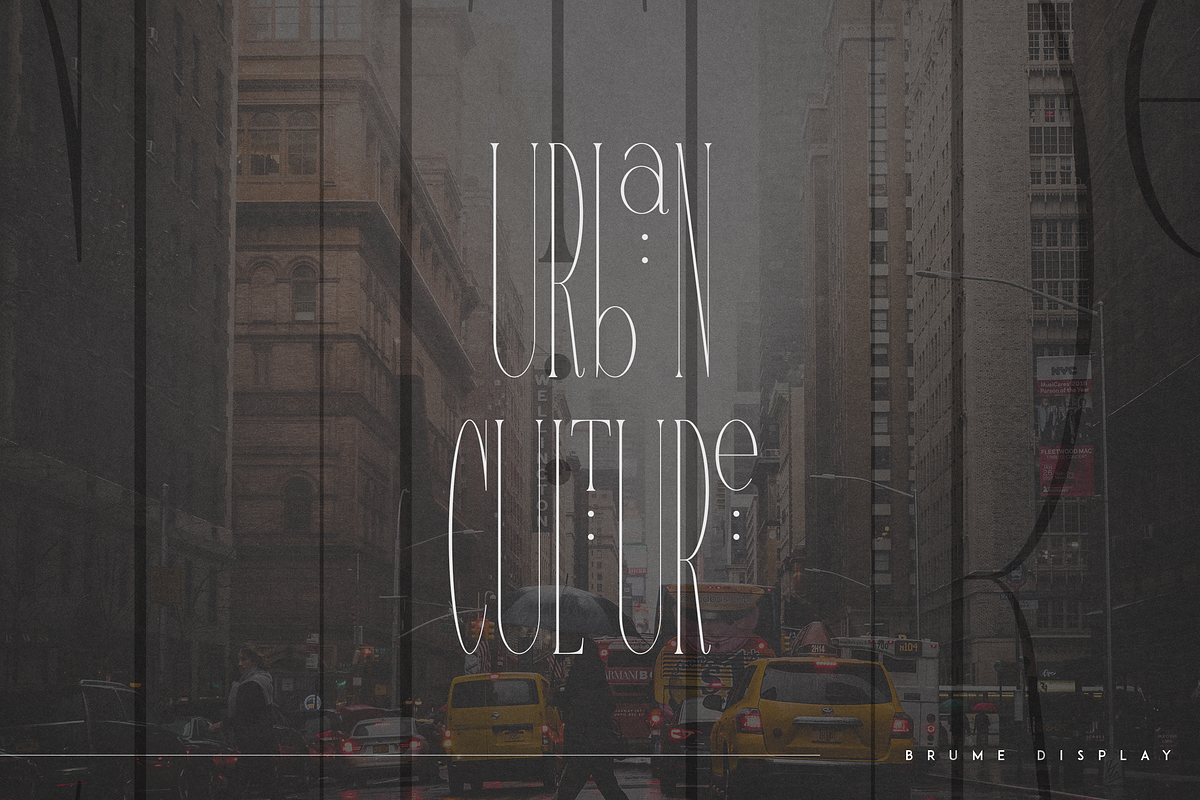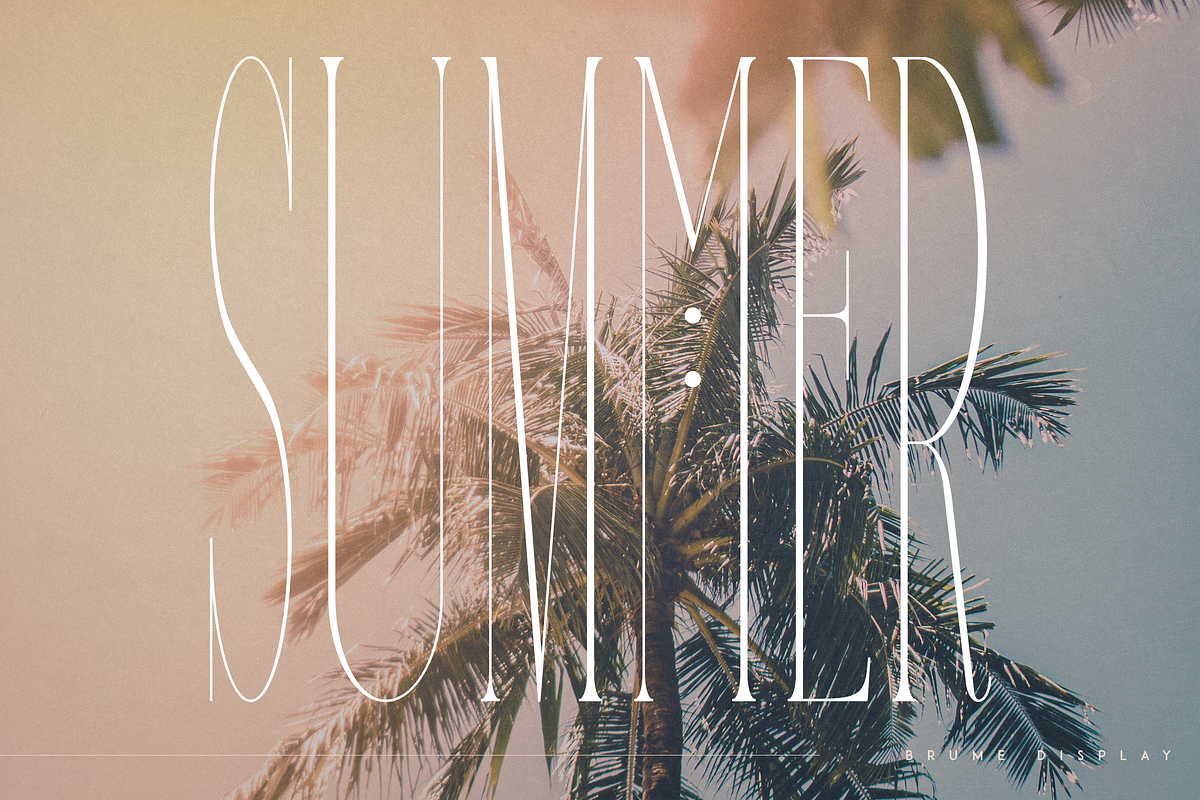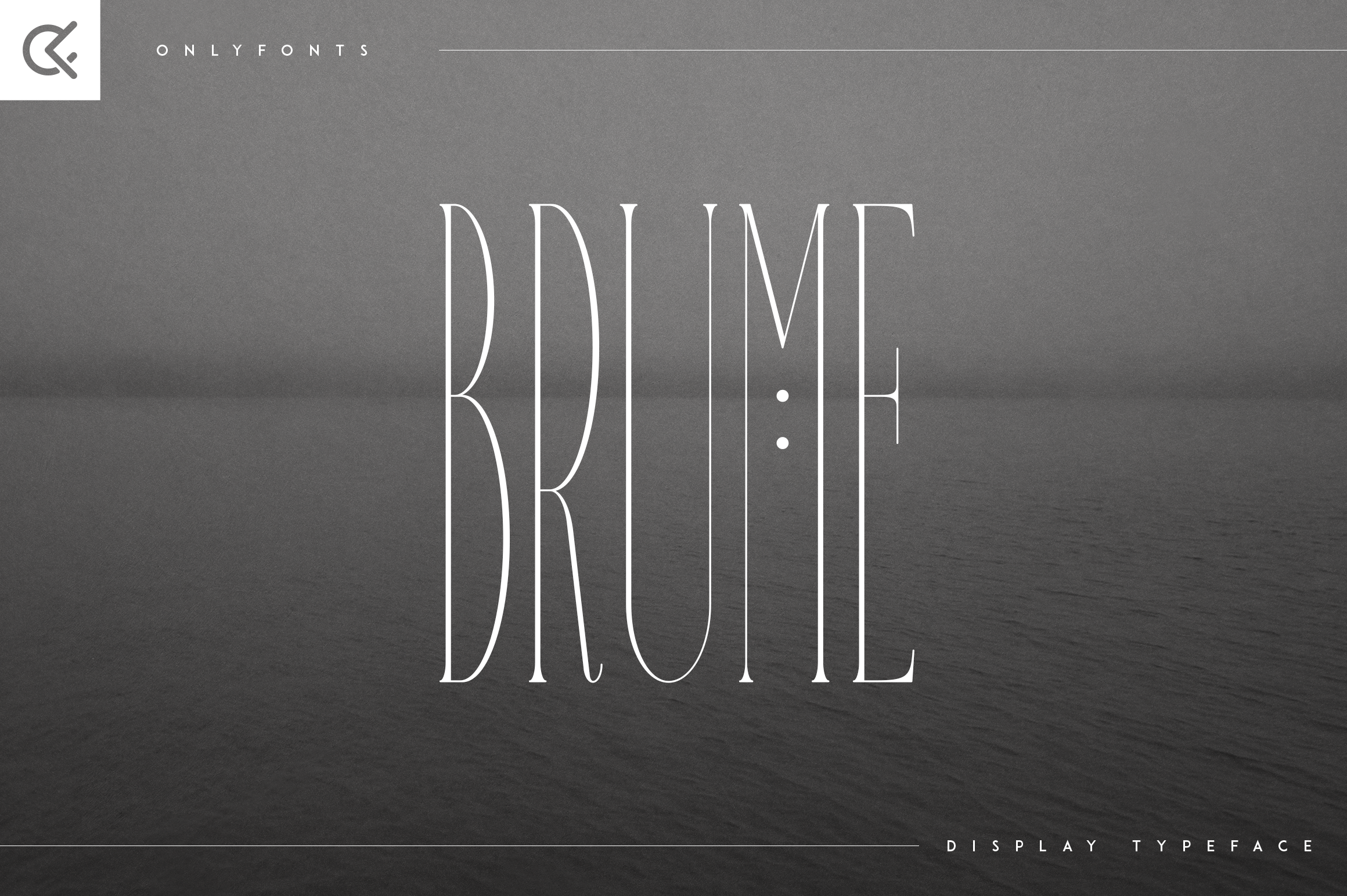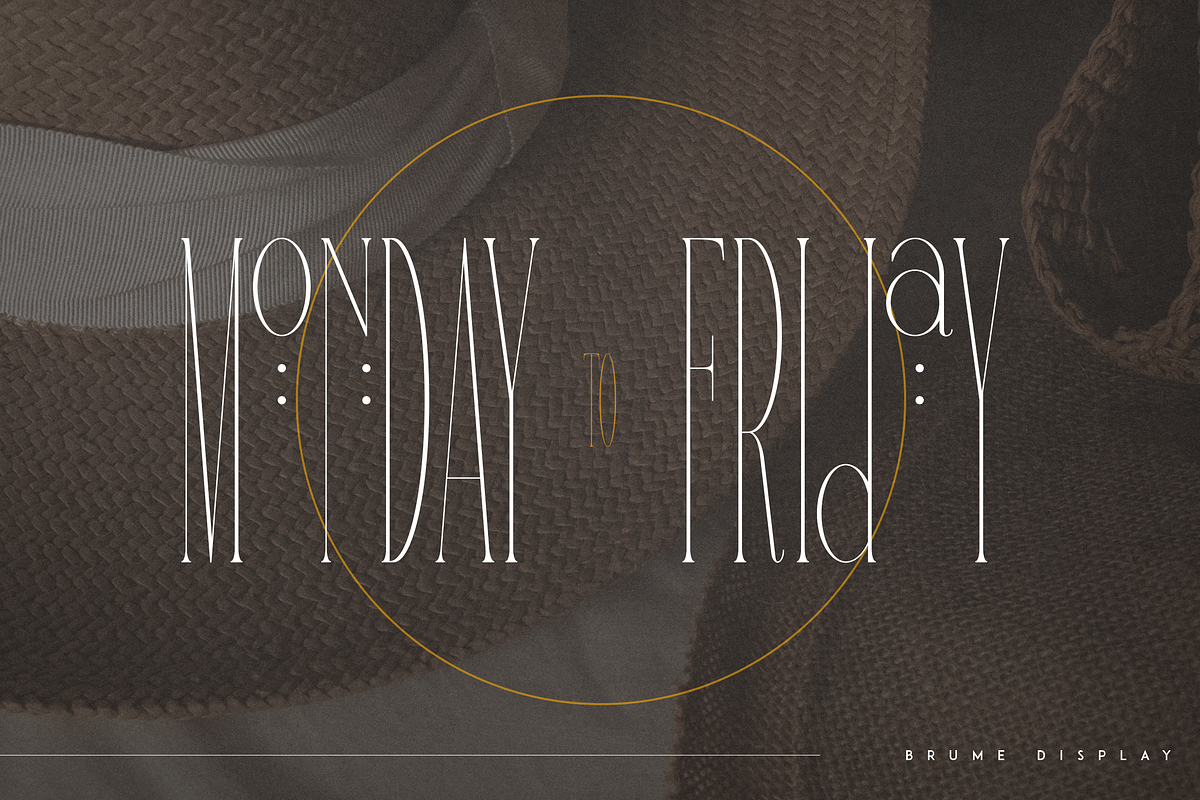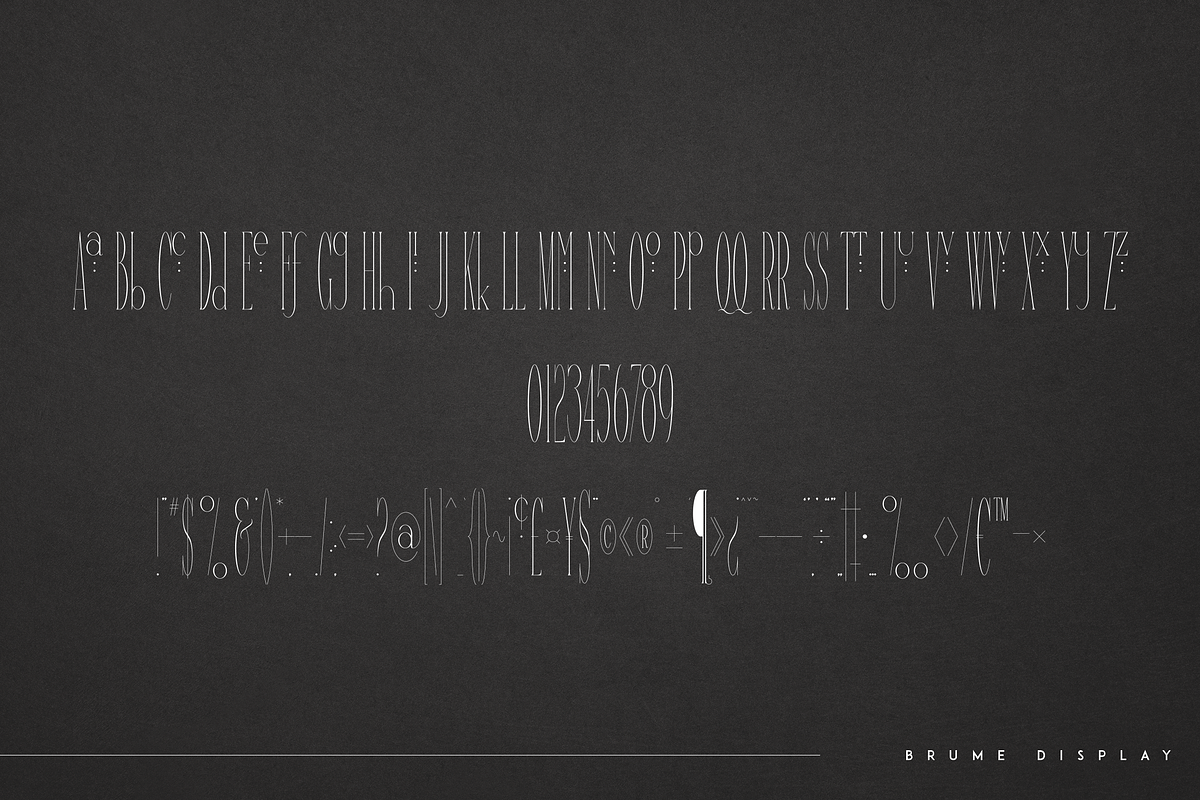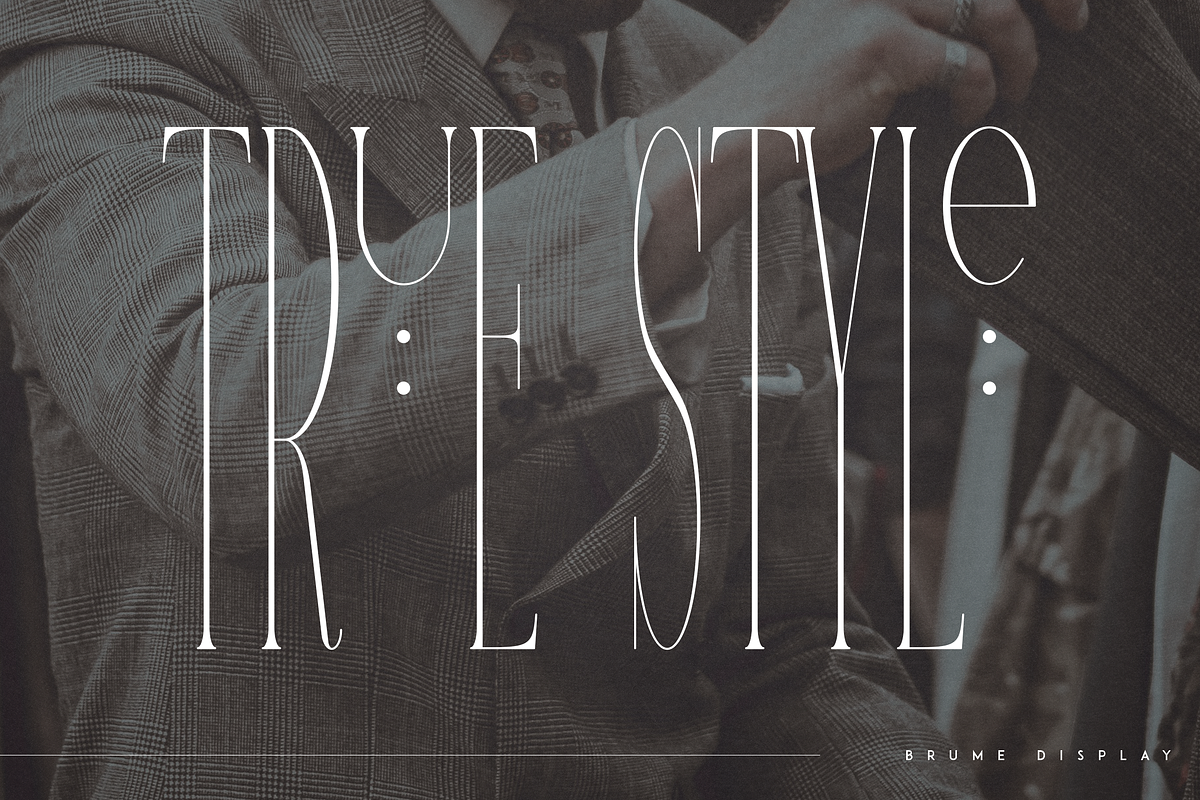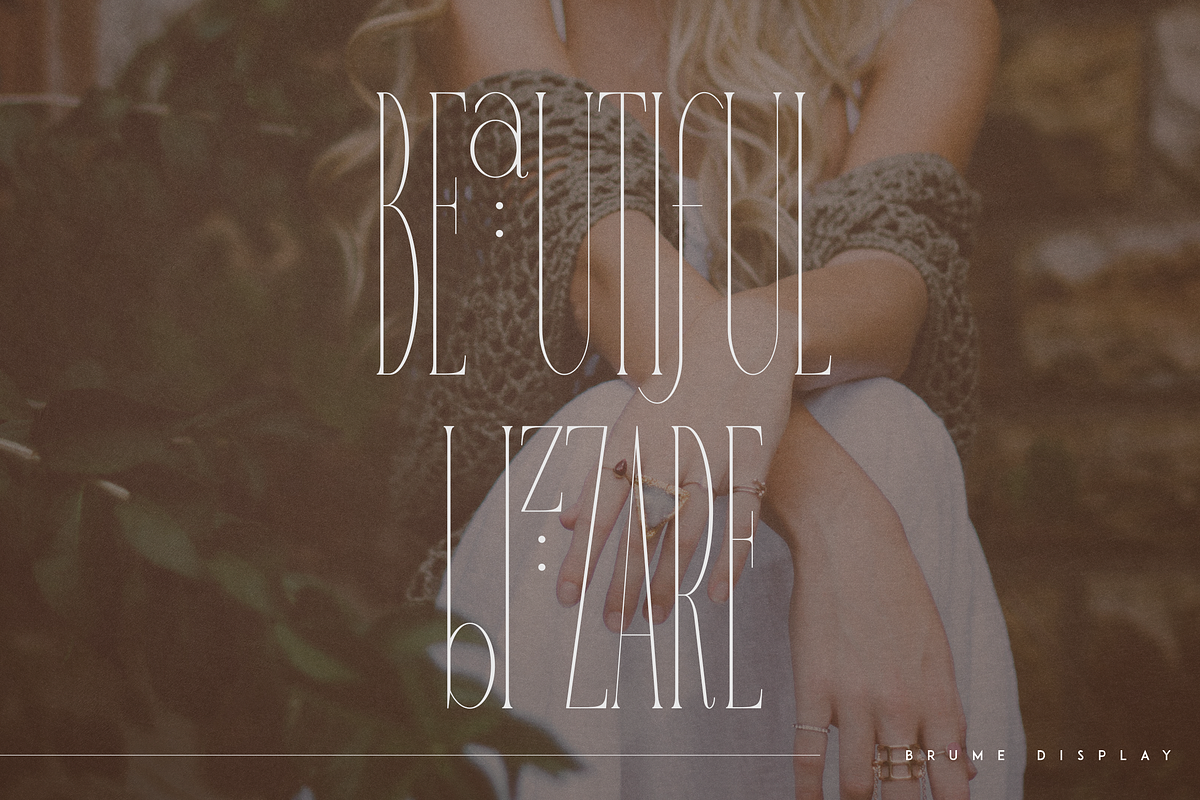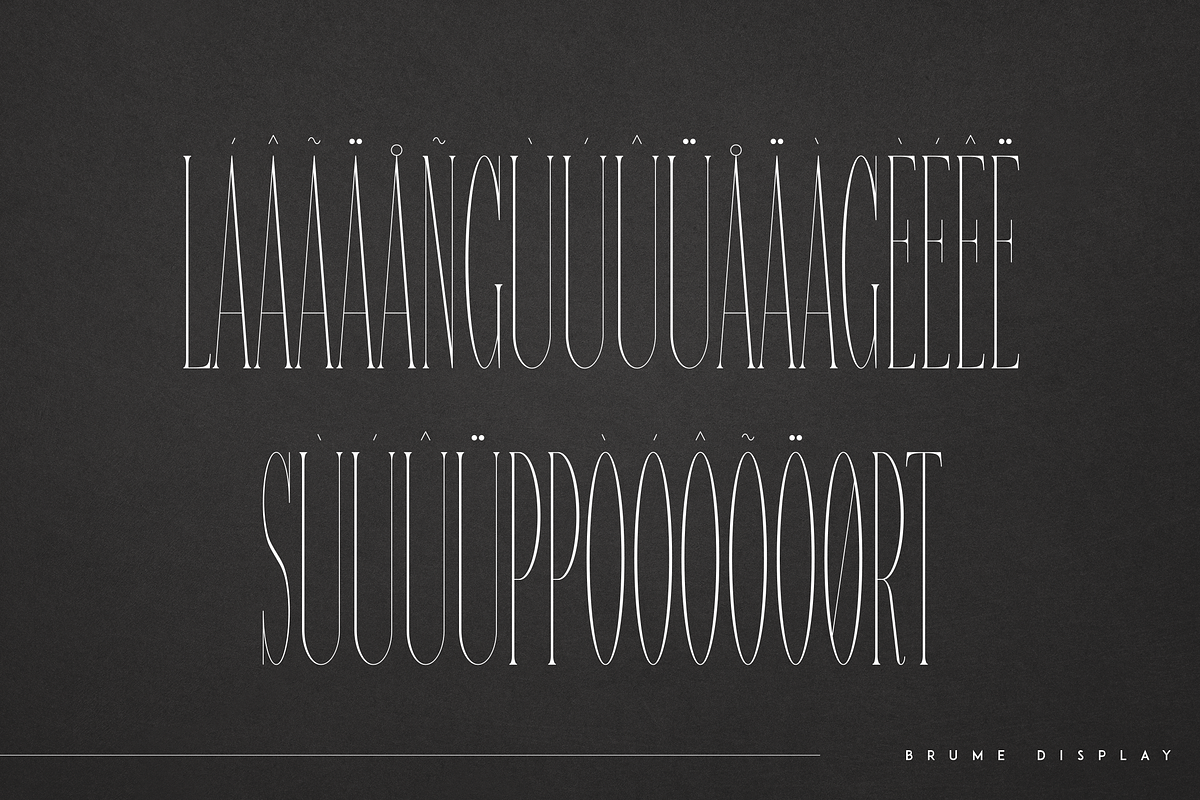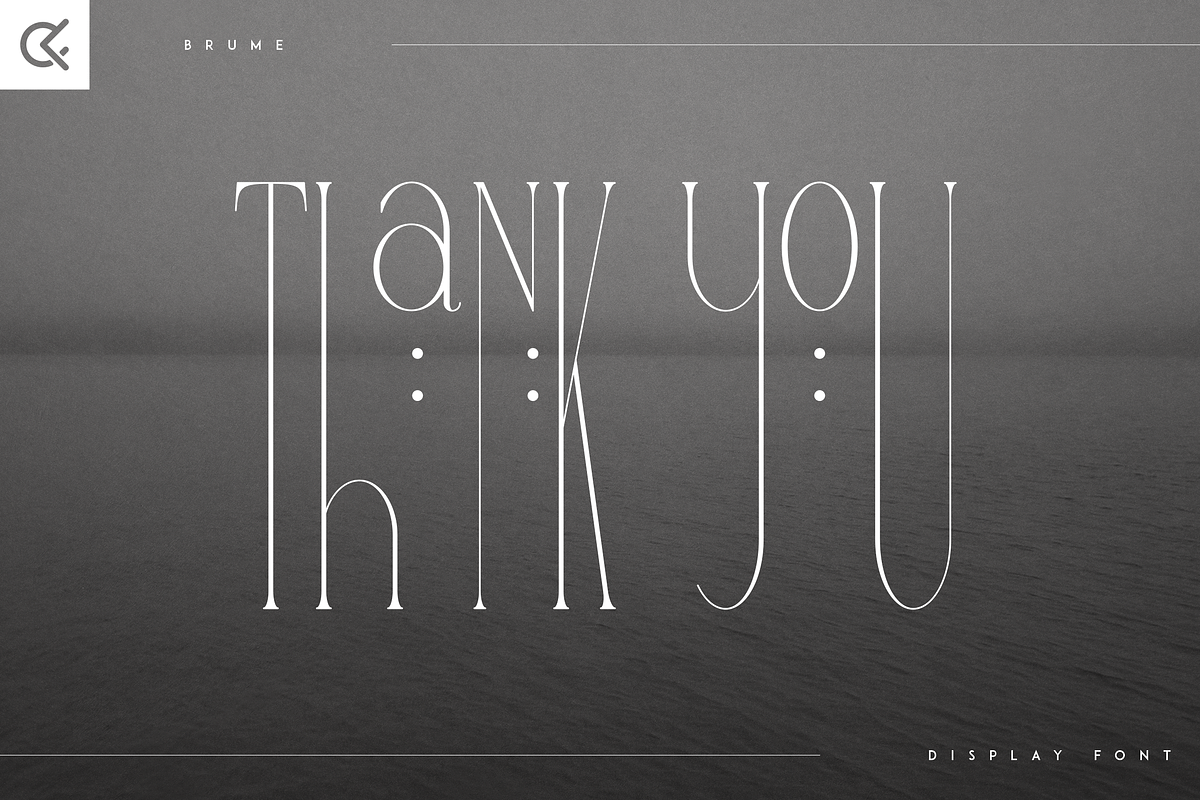
Brume - super long display font
Introducing Brume - super long display font
Brume is long and bizarre font with multilingual support. It's a very versatile font that works great in large and small sizes.
This font is perfect for branding projects, home-ware designs, product packaging, magazine headers - or simply as a stylish text overlay to any background image.
- Uppercase, lowercase, numeral, punctuation & Symbol